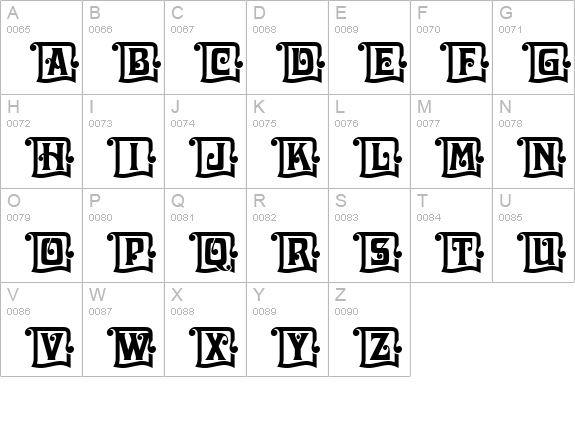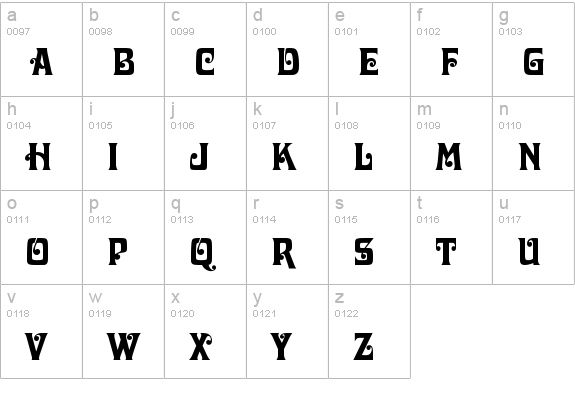
DavidaIniD Font Details
DavidaIniD font is a visually striking typeface that exudes elegance and sophistication. With its unique blend of modern and classic elements, this font is perfect for adding a touch of style to any project. The clean lines and sharp angles of DavidaIniD give it a timeless appeal that is sure to make a statement. Whether you're creating a logo, designing a website, or working on a print project, DavidaIniD is the perfect choice to help your work stand out. And the best part? DavidaIniD font is available for free download at FontsMarket.com. This means you can easily access this stunning font and use it in your projects without any hassle. Don't miss out on the opportunity to enhance your designs with the beauty of DavidaIniD font – download it today and let your creativity shine!